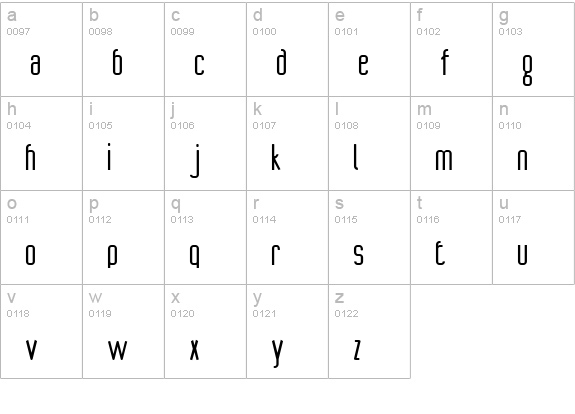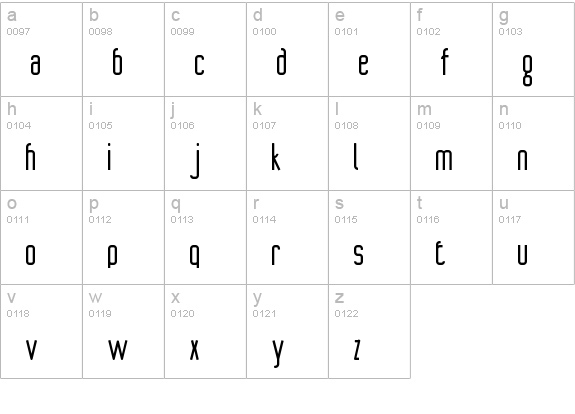
CONTROL Font Details
Introducing CONTROL font, a sleek and modern typeface designed to bring a touch of sophistication to your projects. With its clean lines and contemporary style, CONTROL font is perfect for a wide range of design applications, from branding to editorial design. This versatile font features a unique blend of sharp angles and smooth curves, creating a distinctive look that is both elegant and eye-catching. Whether you're creating a logo, poster, or website, CONTROL font will help your text stand out and make a lasting impression. Best of all, CONTROL font is free to download at FontsMarket.com. So why wait? Add this stylish and professional font to your collection today and take your designs to the next level.